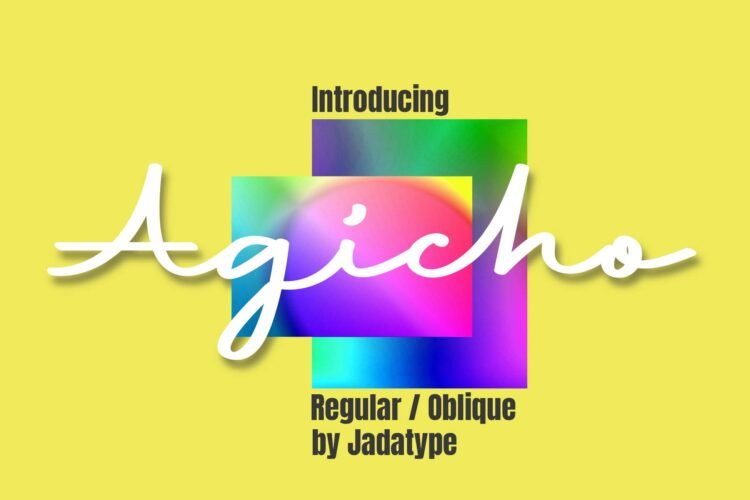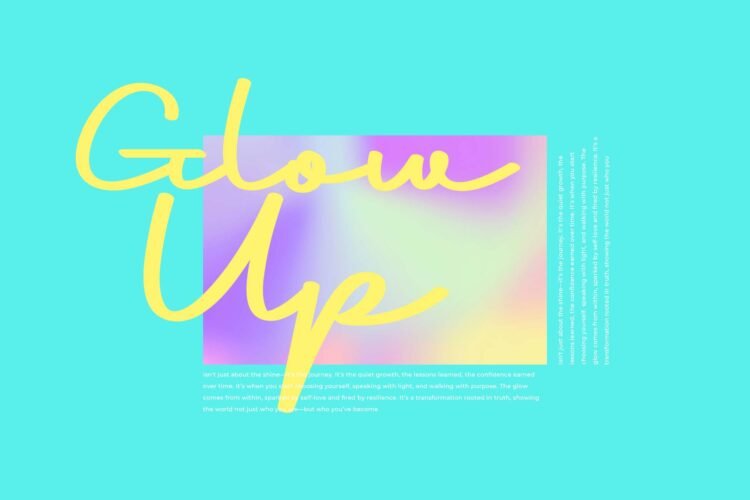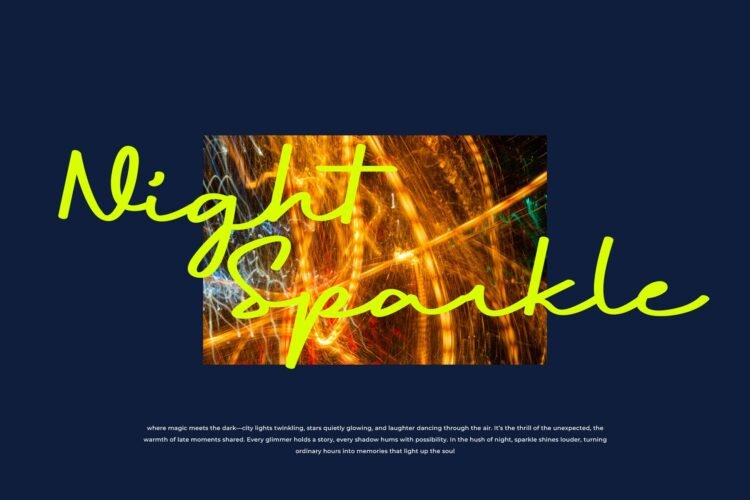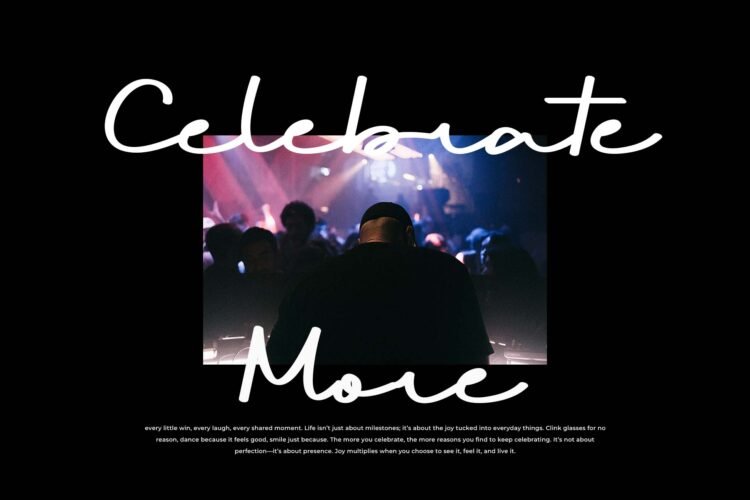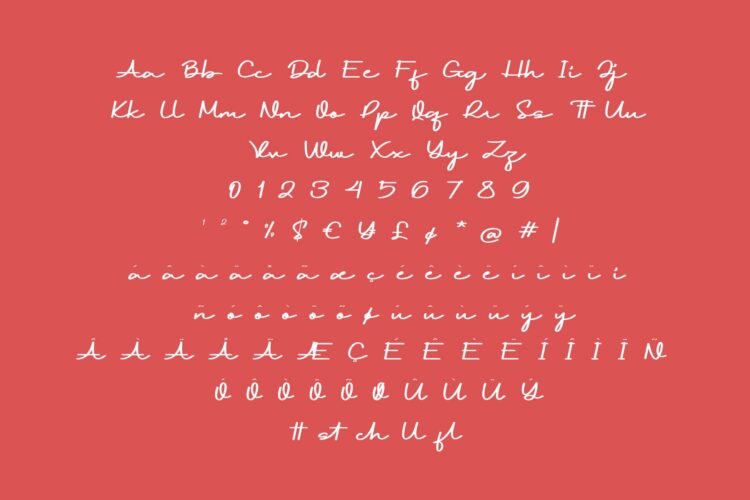
agicho display script
Agicho is a font with a stylish brush script style. suitable for branding, social media, products, advertisement, and so on. contains standard English letters, numbers, punctuation, and several accents that support multilingualism.
Agicho – Display Script